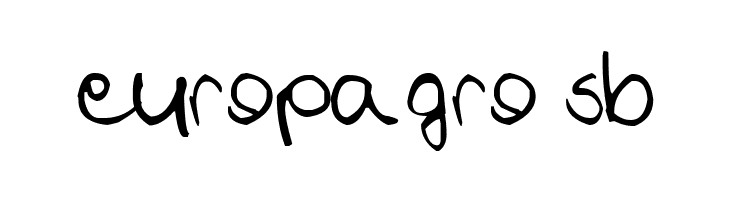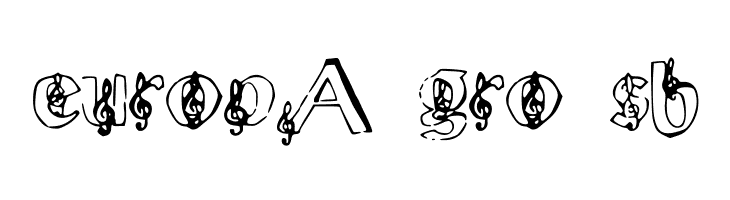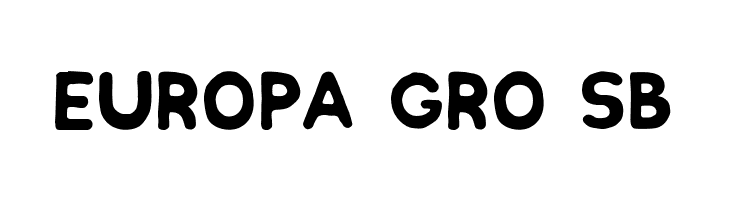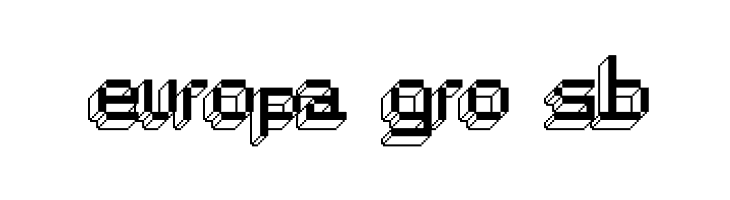
A playful, hand-drawn font with bold, irregular strokes and a casual vibe.
A bold, playful handwritten font with rounded edges and a friendly style.
A playful, hand-drawn font with a whimsical and friendly style.
A bold, decorative font with a three-dimensional, shadowed effect and intricate patterns.
Playful, bubble-like hand-drawn font.
A bold, geometric font with a 3D effect and futuristic style.
A bold, brush-style font with a dynamic and artistic appearance.
A decorative font with sharp, angular edges and an Asian calligraphy-inspired style.
A fluid and expressive calligraphy font inspired by traditional Chinese brush writing.
A geometric, circular display font with outlined, intersecting letterforms.
A bold, dramatic font with sharp, angular edges and dragon-like motifs.
A bold, 3D font with geometric shapes and shadow effects, perfect for impactful designs.
A bold, decorative font with intricate line work and three-dimensional shadowing.
A decorative and artistic font with modern, flowing elements.
An elegant, flowing script font with ornate uppercase and smooth lowercase letters.
A playful, hand-drawn font with a casual, friendly appearance.
A bold, hand-drawn font with a playful and energetic style.
A bold, pixelated font with a 3D block effect and retro video game style.
A 3D block-style font with a retro, pixelated aesthetic.
A decorative, tech-inspired font with circuit-like patterns.
A constellation-themed font with characters formed by dots and connecting lines.